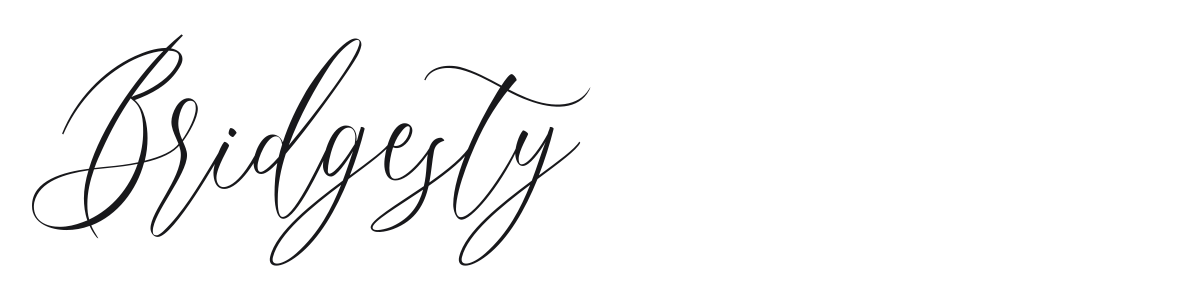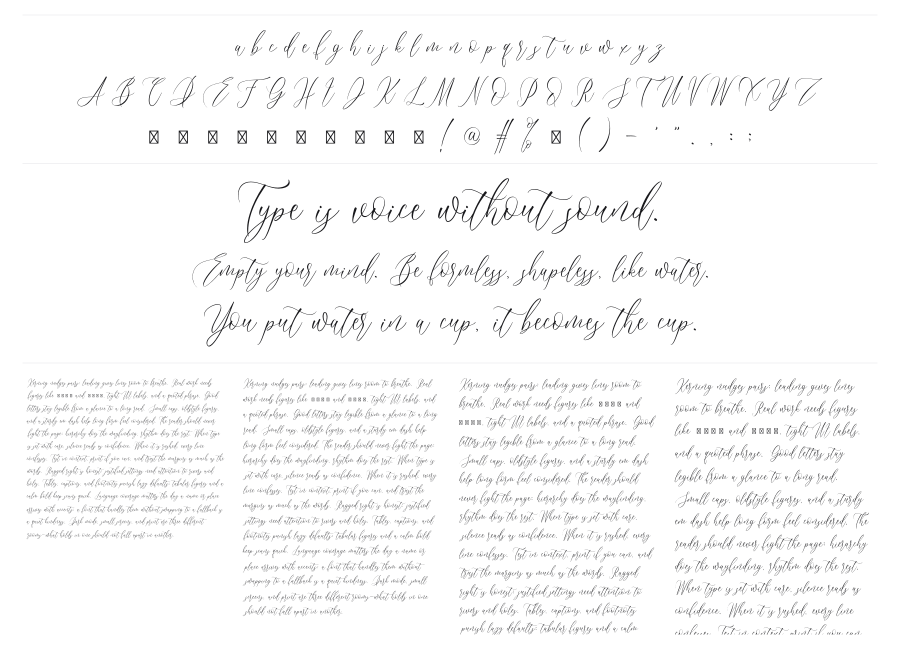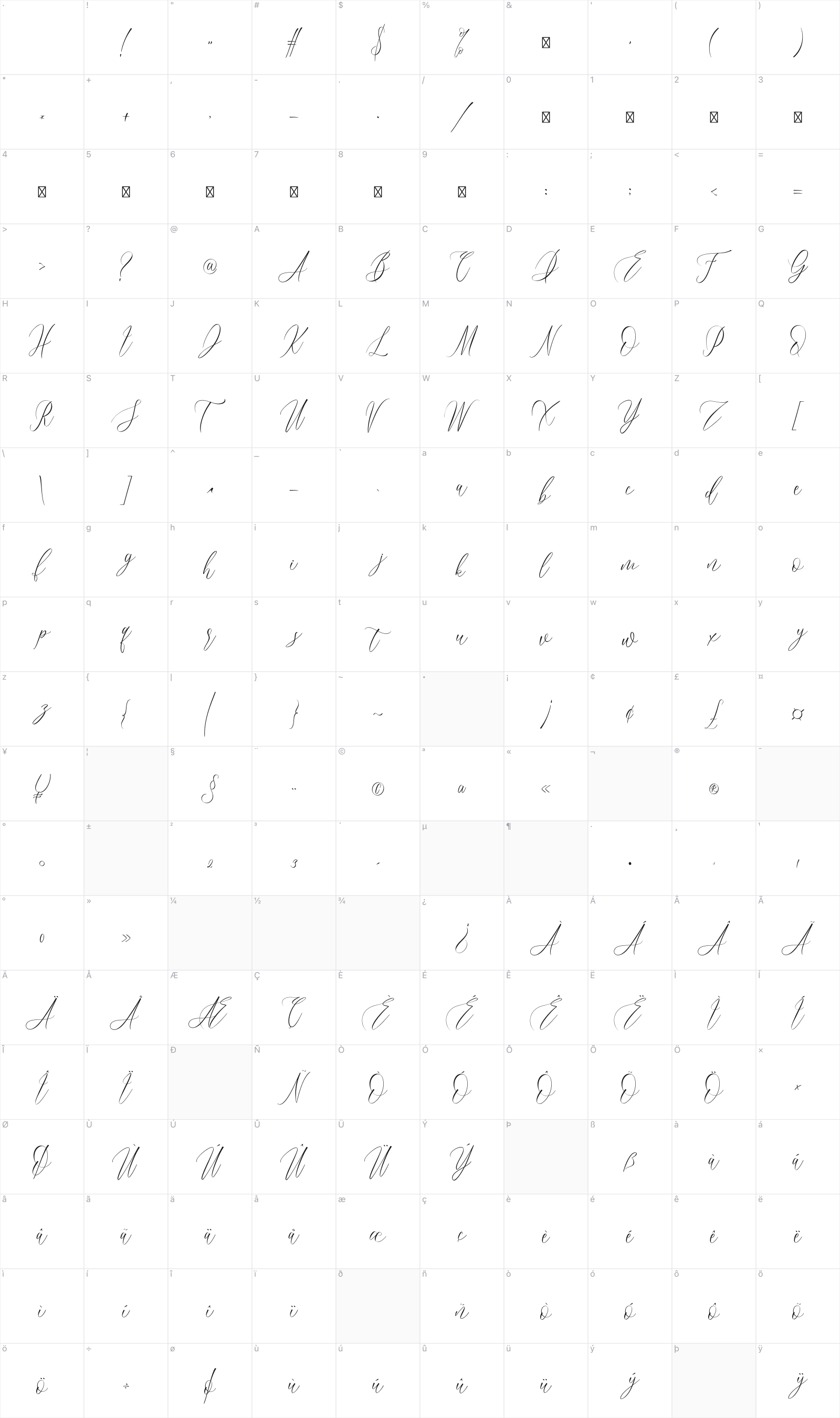
Bridgesty
Bridgesty is a flowing formal script rooted in copperplate calligraphy, with dramatic stroke contrast and looping swash characters that give it an unmistakably romantic energy. The generous ascenders and descenders weave together in a continuous rhythm across the line. It's the kind of face that turns a single word into an event.